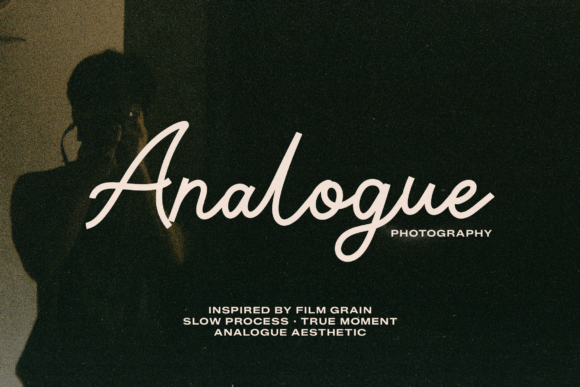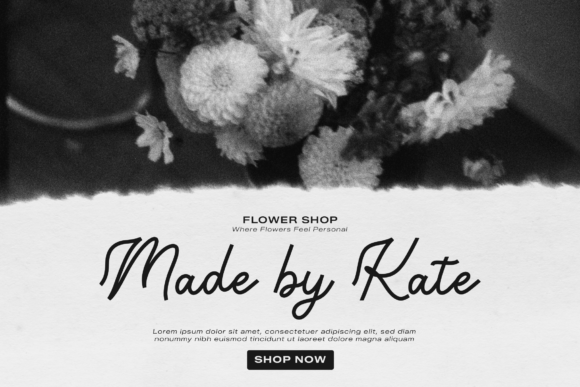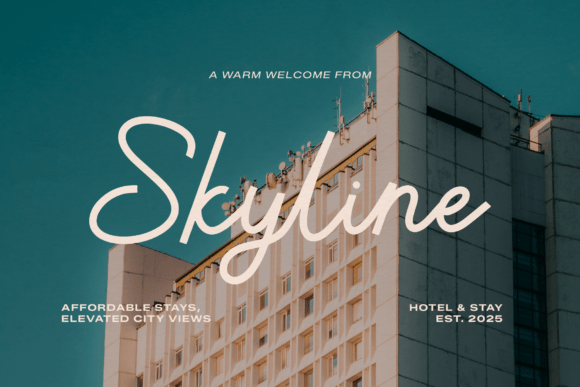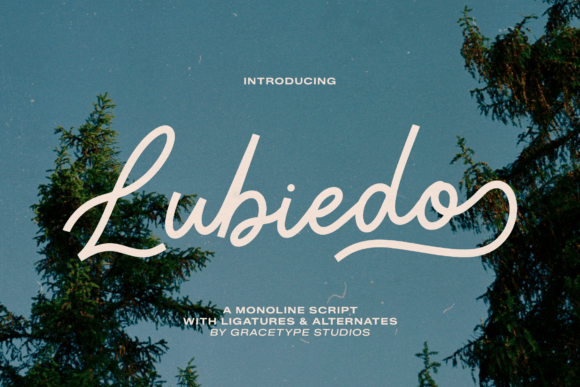
Introduction to Lubiedo Font
Lubiedo is an elegant and fluid monoline script font that captures a timeless, nostalgic charm.
The typeface features consistent stroke weights and a graceful slanted axis that mimics smooth, continuous-point penmanship The design is enhanced by sophisticated ligatures and alternates, which create a rhythmic and finished look.